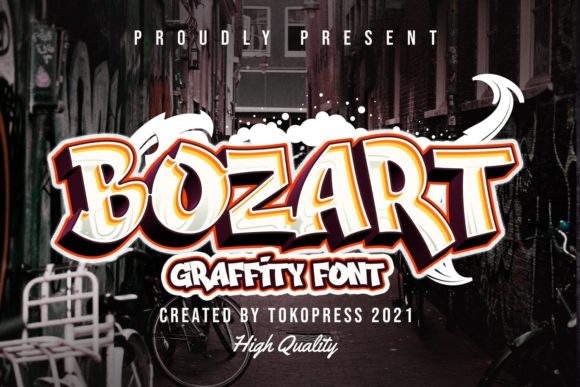
Introducing Bozart Font, the ultimate choice for string art enthusiasts and creative minds alike! This captivating display font boasts bold, thick letters that will infuse your creations with an unforgettable charm.
Unleash your creativity with Bozart's versatility, whether you're crafting stunning string art pieces, designing eye-catching logos, or creating impactful social media posts. Its distinct and memorable style will elevate your designs to new heights, leaving a lasting impression on your audience.
Step into the realm of imagination and let Bozart's bold presence transform your creations. Its timeless appeal will add a touch of sophistication and elegance to any project, making it a must-have for designers and artists of all levels.
With Bozart Font, the possibilities are endless. Embrace the power of creativity and embark on a journey where your imagination knows no bounds. Download Bozart today and unlock the gateway to a world of unforgettable designs!